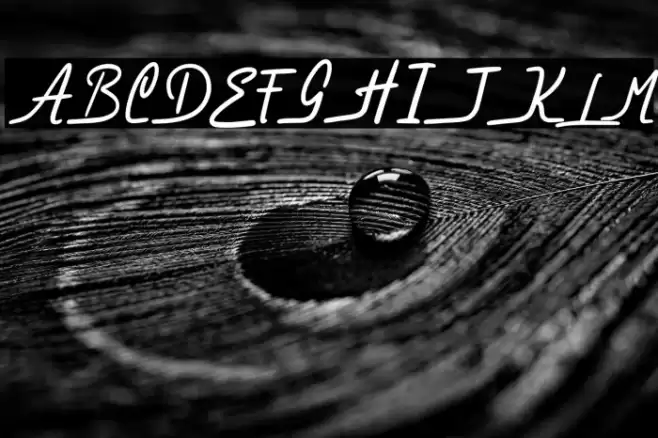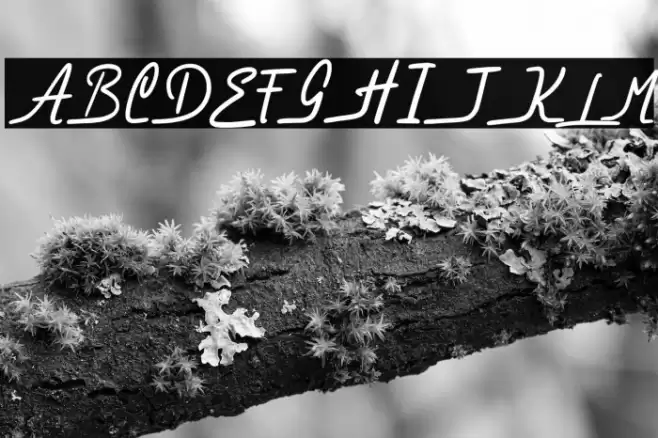
Painted Font
Painted Description
This font features a dynamic and fluid script style, characterized by its elegant and flowing letterforms. The uppercase letters are slightly slanted, with smooth curves and a consistent stroke width, giving a sense of movement and grace. The lowercase letters maintain the same fluidity, with some letters connecting seamlessly to others, enhancing the script's cohesive appearance. The font lacks numerical and special character representations, focusing solely on alphabetic characters. Its overall design exudes a sense of sophistication and artistic flair, making it suitable for creative and expressive projects.
A dynamic and fluid script font with elegant, flowing letterforms from Uncategorized fonts.
- Font: Painted
- Proposed Projects: Ideal for wedding invitations, greeting cards, branding, and artistic projects requiring a touch of elegance.
- Overall Style: Elegant
- Use Case: Logos, Invitations, Artistic projects